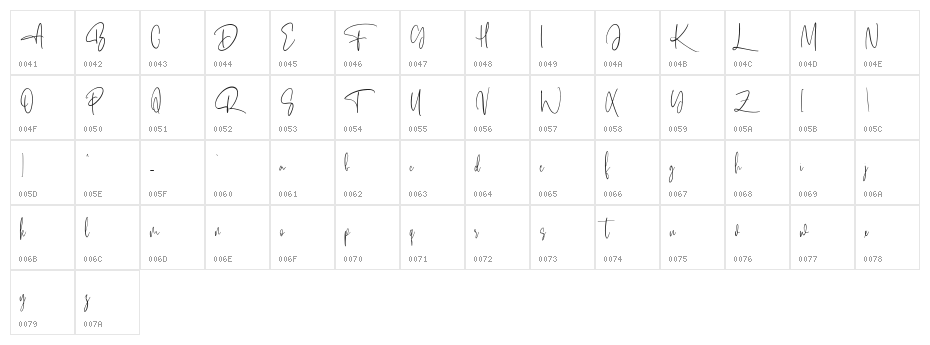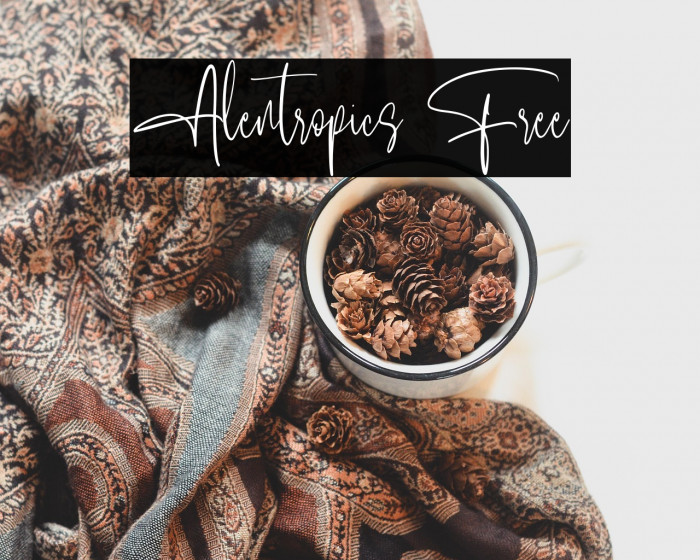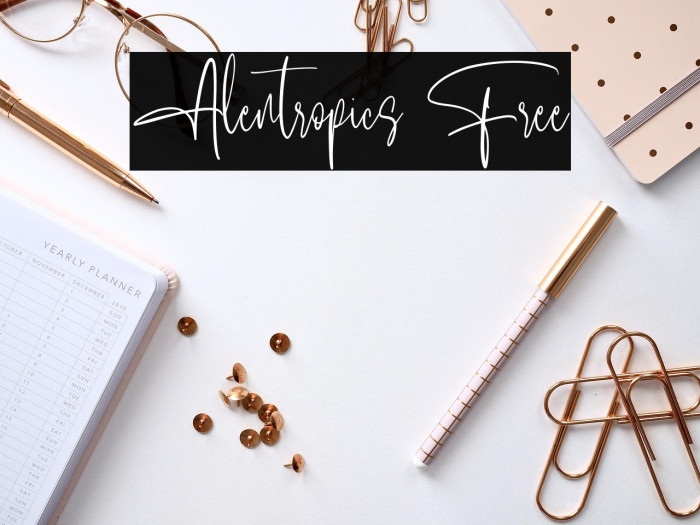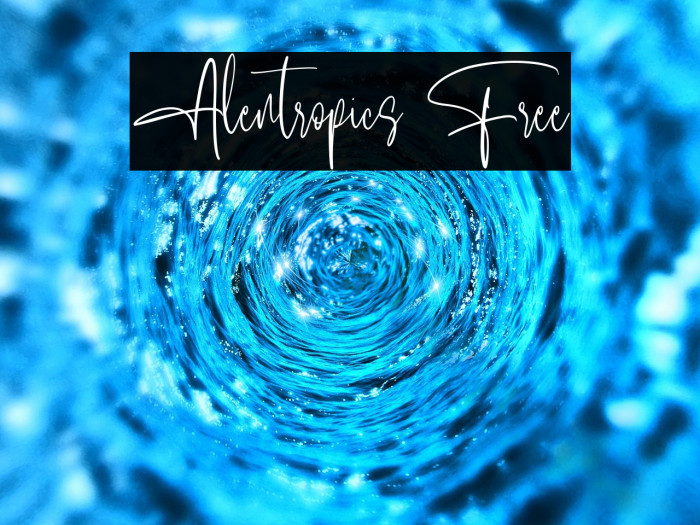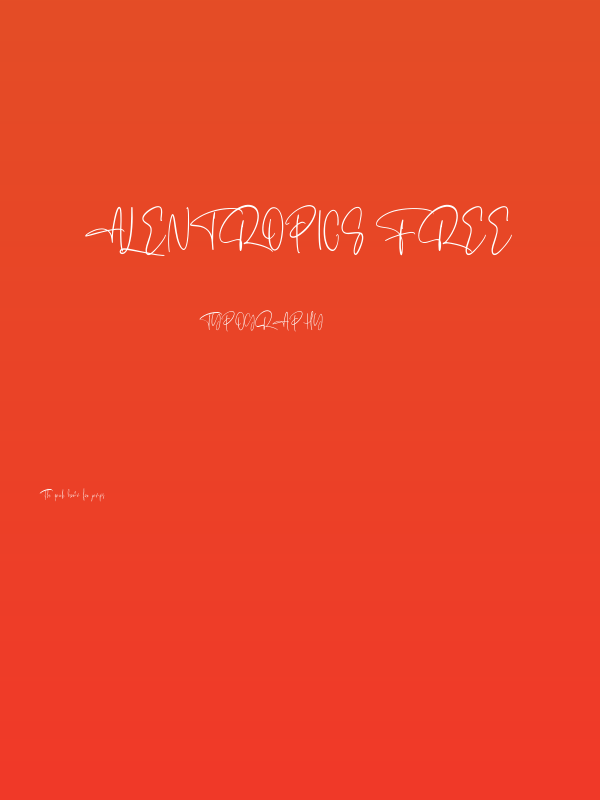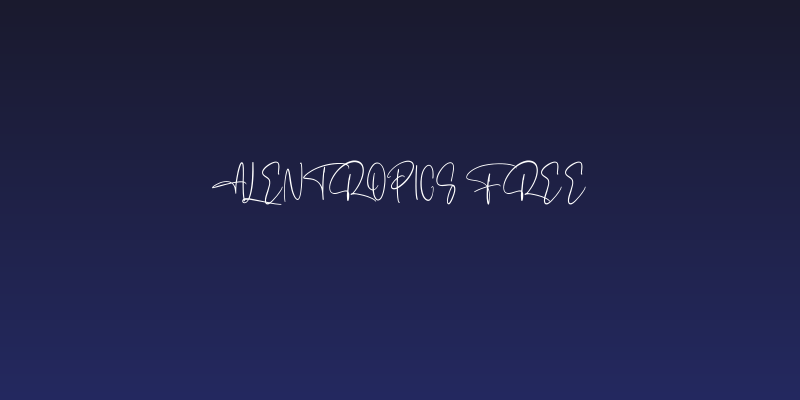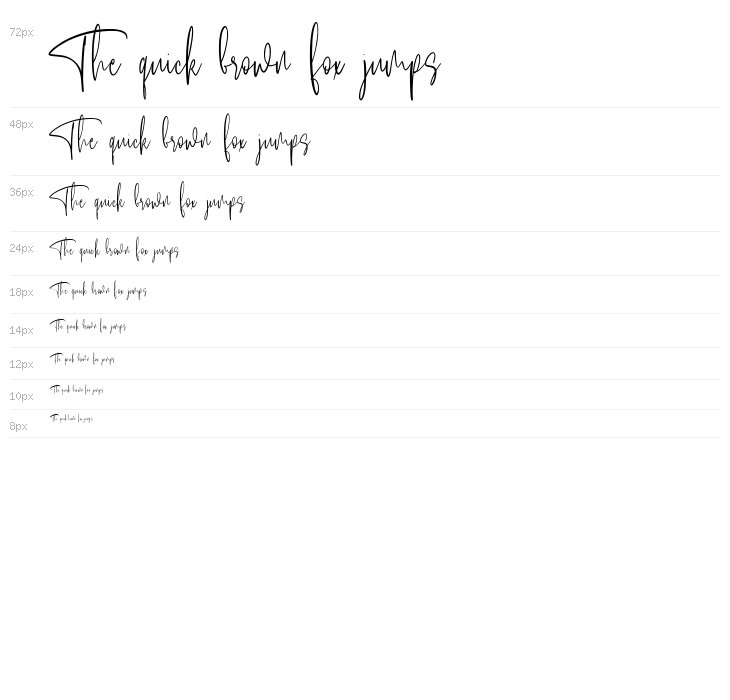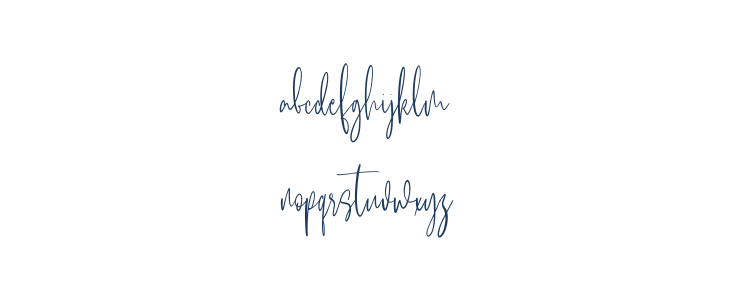
Alentropics Free Font
Alentropics Free Description
This font features a playful and artistic handwritten style, characterized by its fluid and dynamic strokes. The uppercase letters are bold and expressive, with a whimsical flair that adds a sense of movement and creativity. The lowercase letters maintain a consistent flow, complementing the uppercase with their elegant curves and loops. The overall design is both modern and artistic, making it suitable for projects that require a personal touch. The font's unique style is perfect for creative branding, invitations, and artistic projects where a distinctive and lively appearance is desired.
| Overall Style | Modern, Artistic |
| Use Case | Logos, Invitations, Creative Branding |
| Proposed Projects | Ideal for creative branding, invitations, artistic projects, and personal designs. |